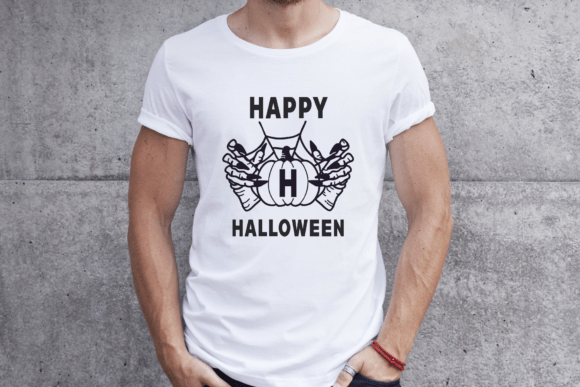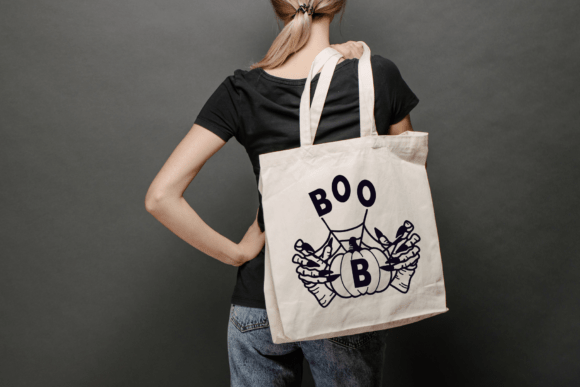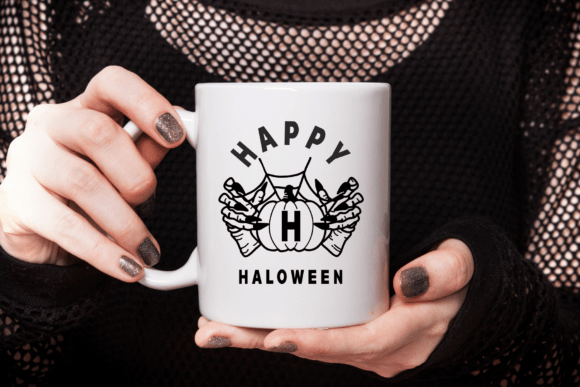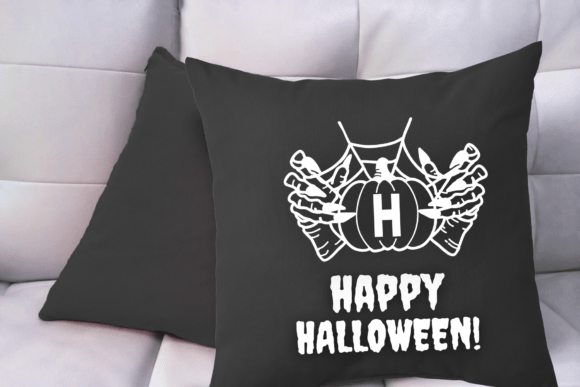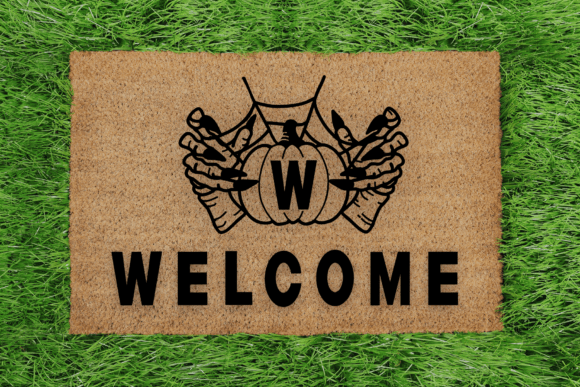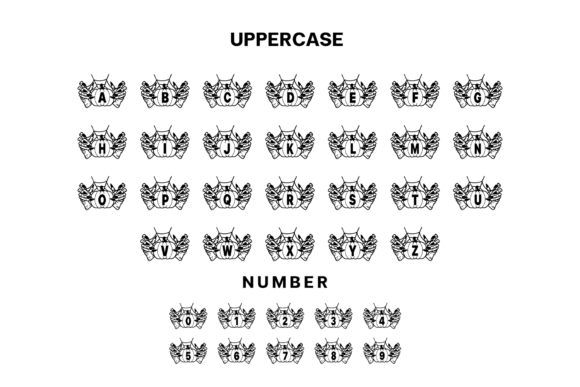
Introduction to Pumpkin Monster Font
Do you remember that one Halloween night when you spent hours carving the perfect pumpkin, only to have it get ruined by the first trick-or-treater? The thrill of creating something spooky and fun, only to have it get destroyed in an instant. That’s the same excitement that Pumpkin Monster Font brings to designers everywhere.
As a valuable design resource, Pumpkin Monster Font is a high-quality display font that’s perfect for adding a touch of Halloween magic to your creative projects. With its bold, blocky letters and chiseled cuts, it’s a must-have for anyone looking to create eye-catching posters, stickers, and banners that scream “Happy Halloween!”
Whether you’re working on a spooky merch line, a haunted-house themed YouTube video, or a trick-or-treat bag design, Pumpkin Monster Font is a free download that’s sure to deliver. And with its transparent background and roomy counters, it’s perfect for pairing with other fonts to create a cohesive and high-contrast design that’s sure to grab attention.
Pumpkin Monster Font
• Unique, hand-drawn design with a playful and spooky vibe, perfect for creative projects.
• High-quality font with transparent background, ideal for designers looking for a design resource.
• Includes 100 glyphs, covering a wide range of characters, including uppercase and lowercase letters, numbers, and punctuation marks.
• Unique characteristics include a mix of bold and delicate lines, creating a sense of depth and texture.
• Perfect for designers working on Halloween-themed projects, as well as those looking for a creative way to add a seasonal touch to their designs.
Honest Review: Pumpkin Monster Font
I recently had the chance to work with the Pumpkin Monster Font, and I must say it’s been a delight. As a designer, I’m always on the lookout for high-quality fonts that can elevate my creative projects. The Pumpkin Monster Font delivers on that front.
• ✨ Unique design: The font’s quirky, playful style makes it perfect for Halloween-themed designs or any project that needs a touch of whimsy.
• ✨ Transparent background: This feature allows for seamless integration with various design backgrounds, giving you complete control over your design’s look and feel.
• ⚠️ Limited character set: The font’s character set is relatively small, which may be a drawback for designers who need to work with a wide range of characters.
• ⚠️ Not ideal for body text: Due to its playful style, the font may not be the best choice for large blocks of body text.
Overall, I’m impressed with the Pumpkin Monster Font. While it may have some limitations, its unique design and transparent background make it a valuable design resource for designers looking to add a touch of creativity to their projects.
Pumpkin Monster Font
The Pumpkin Monster Font is a high-quality design resource perfect for adding a creative touch to your projects. This font features a unique and playful design, ideal for a variety of applications.
Tips for Getting the Most Out of the Pumpkin Monster Font
For the best results, use the Pumpkin Monster Font on a transparent background to allow the unique design to shine through. You can also experiment with different font sizes and colors to create a visually appealing effect.
The Pumpkin Monster Font is perfect for a variety of creative projects, including:
• Party invitations and decorations
• Food and beverage branding
• Children’s educational materials
You can download the Pumpkin Monster Font for free, making it an excellent addition to your design resource library.